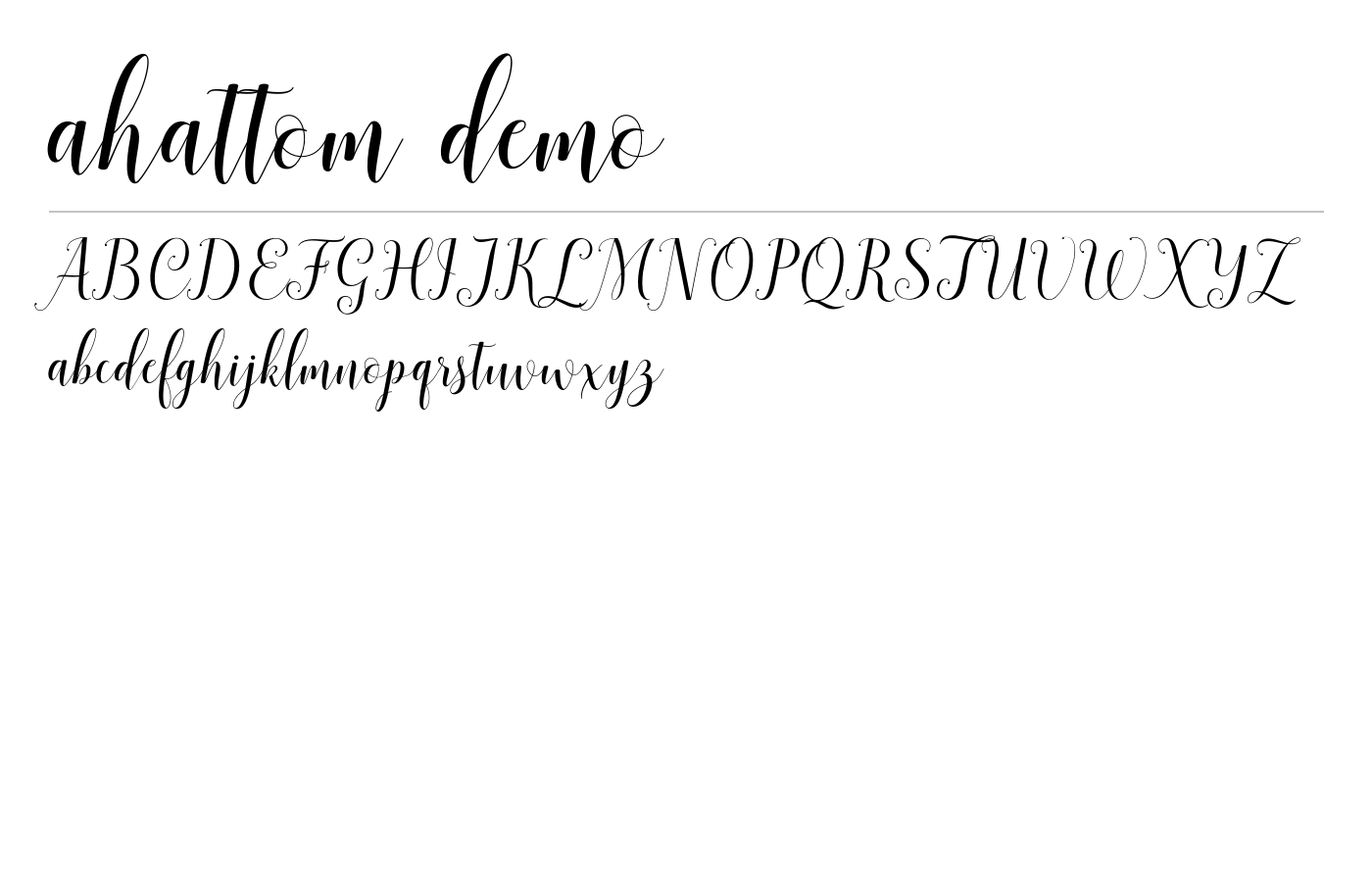
Ahattom demo is an elegant script font featuring delicate, flowing letterforms with high contrast between thin and thick strokes. It exudes a sophisticated and romantic personality, making it ideal for luxury branding, invitations, and stylish editorial design where a graceful, hand-crafted feel is desired. Its ornate details and smooth curves lend a refined charm best suited for decorative headlines and branding that seeks to convey elegance and beauty.
ahattom demo Font
About ahattom demo Font
| Font family | ahattom demo Font |
| Designer | Barmawy Muchtar |